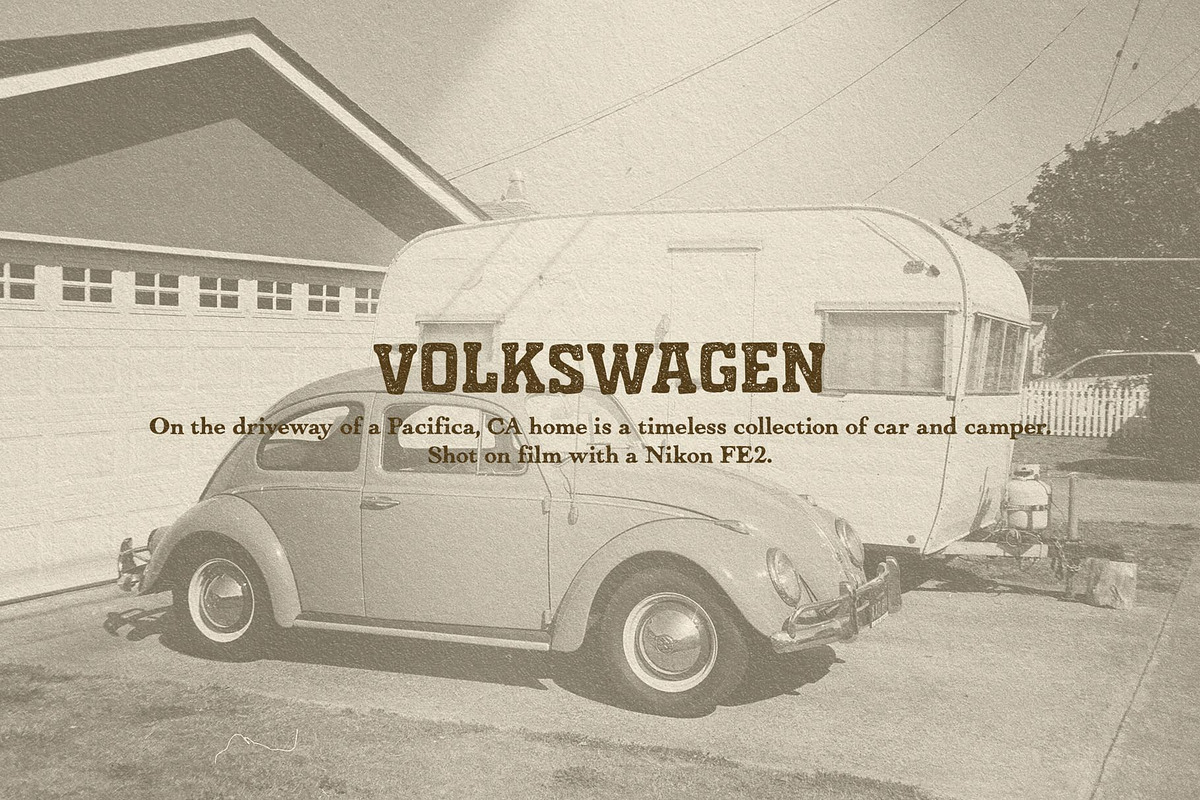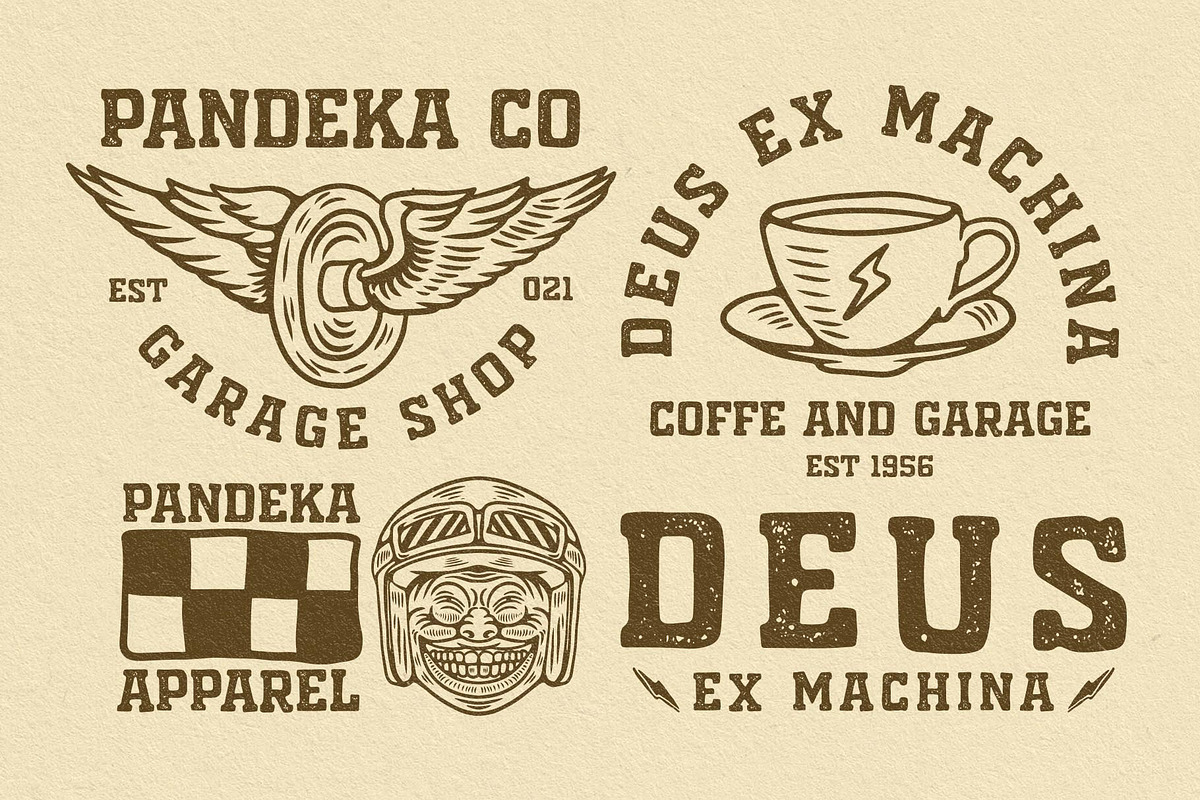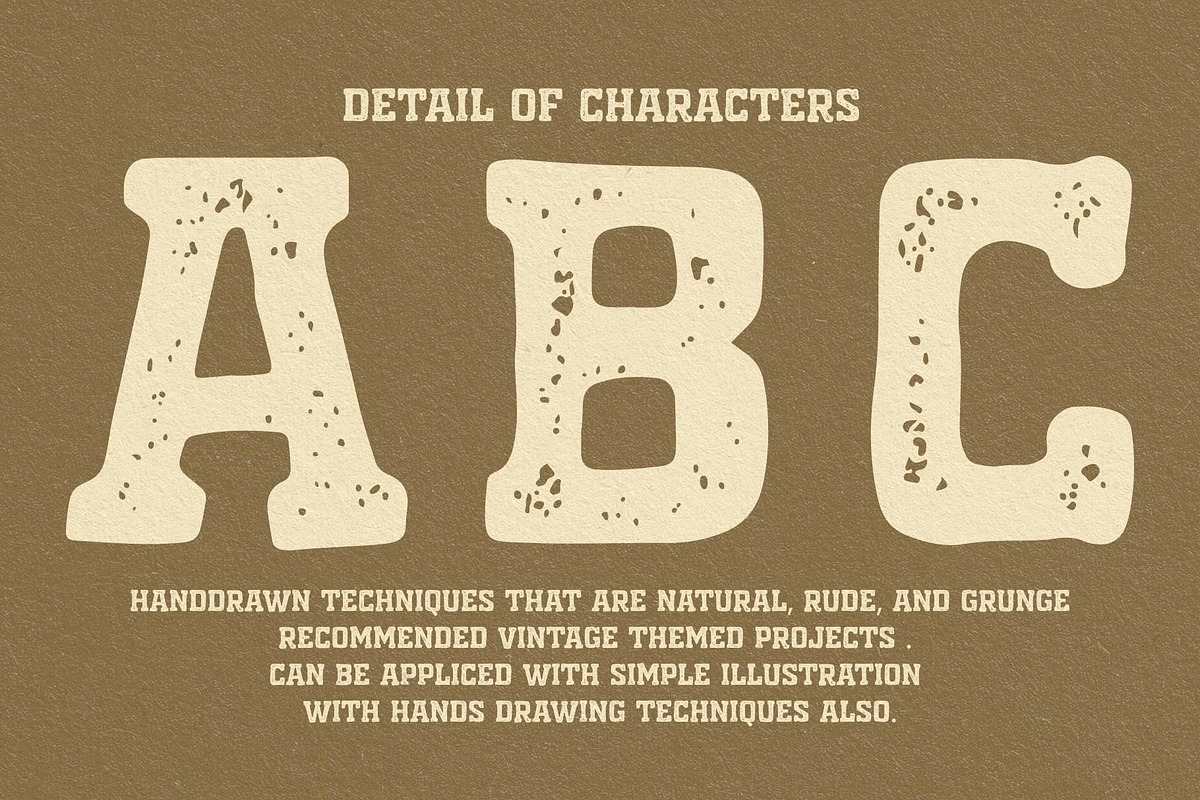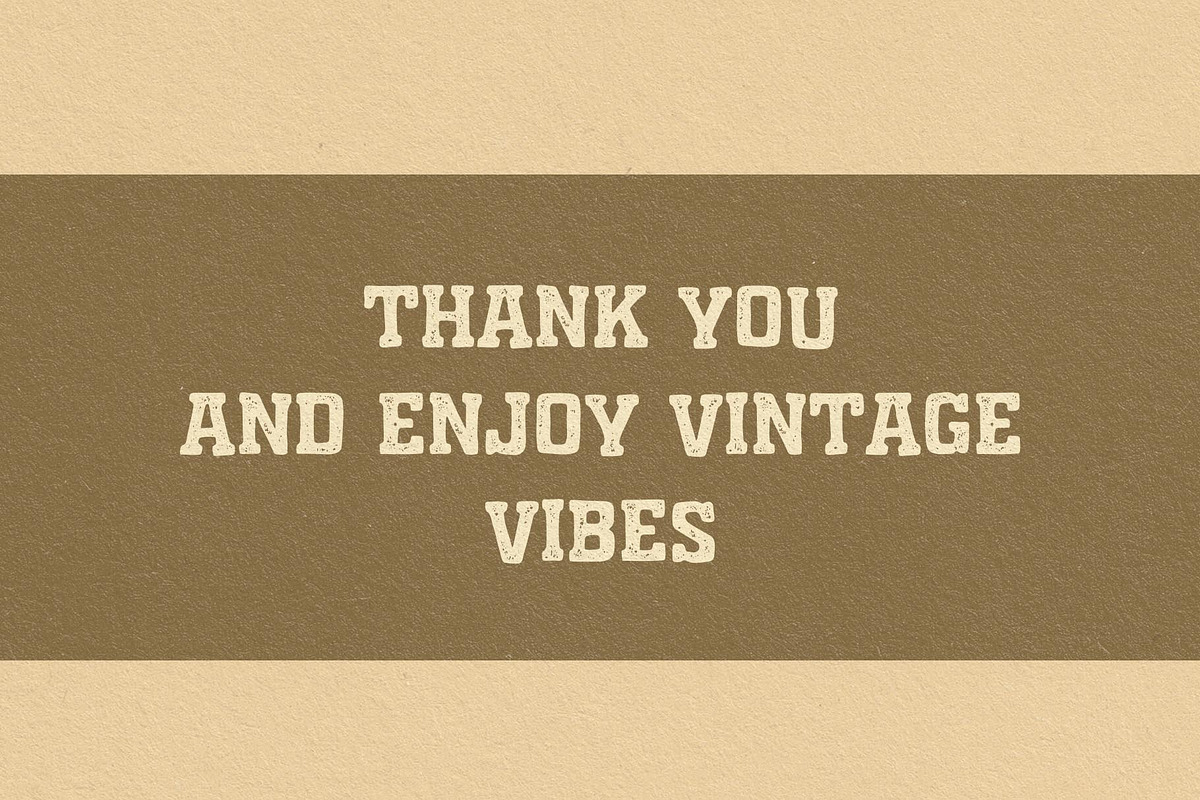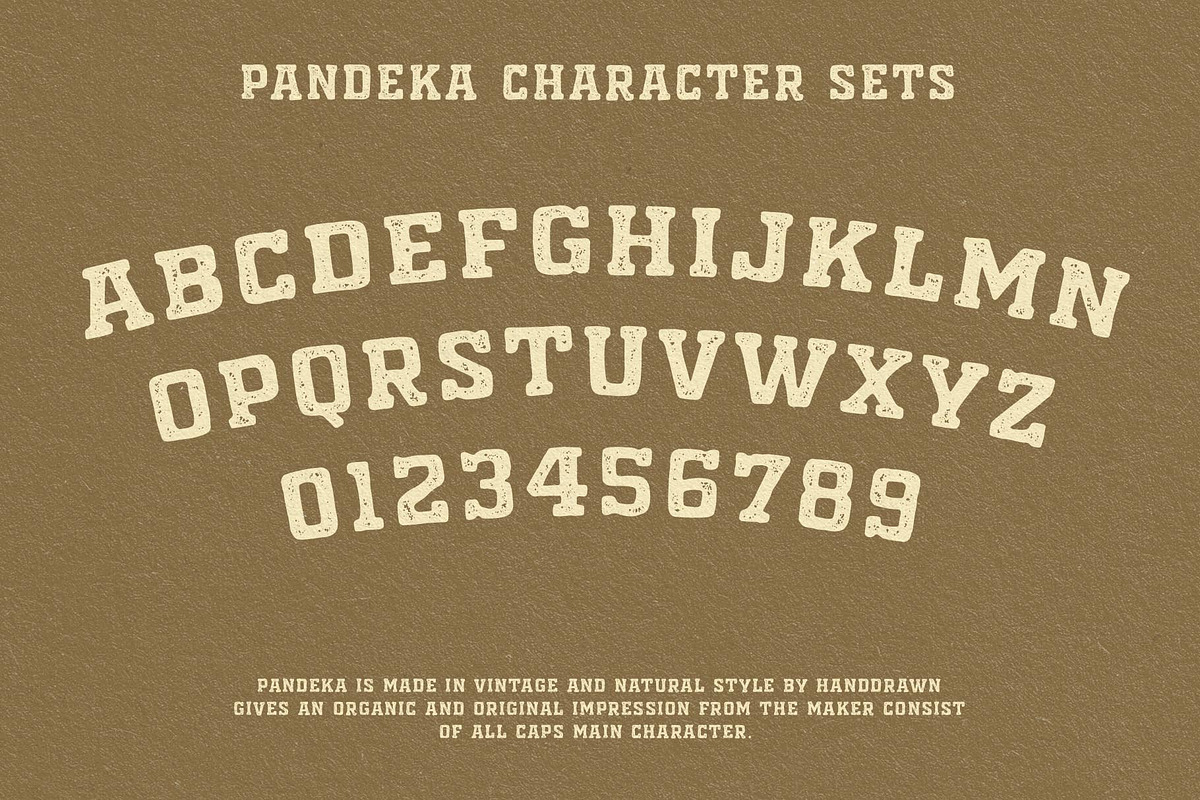
Vintage Font - Pandeka Typeface
PANDEKA TYPEFACE Made in yogyakarta by Illousa. pandeka is a typeface made with hand-drawn techniques, that are natural, rude, and grunge. recommended vintage-themed projects. Can be applied with simple illustration with hand drawing techniques also.
Project: Brand design, t-shirt design, posters, logo, feed content, all of the branding with vintage vibes.